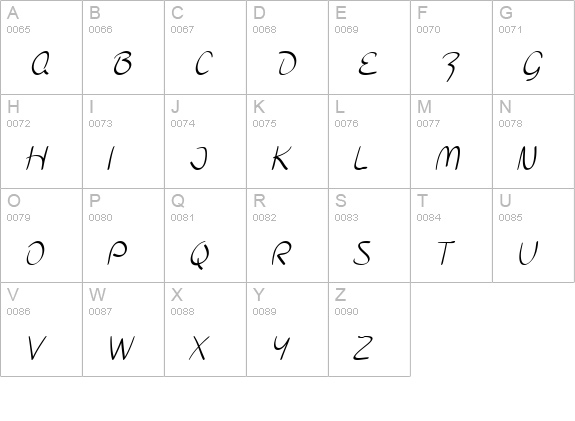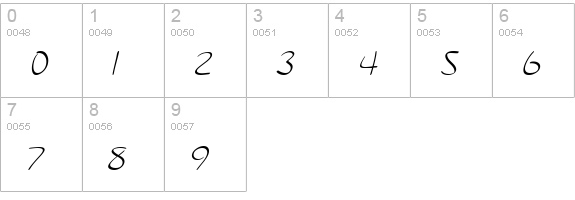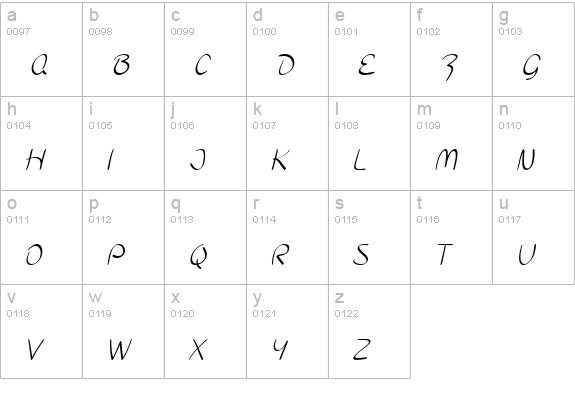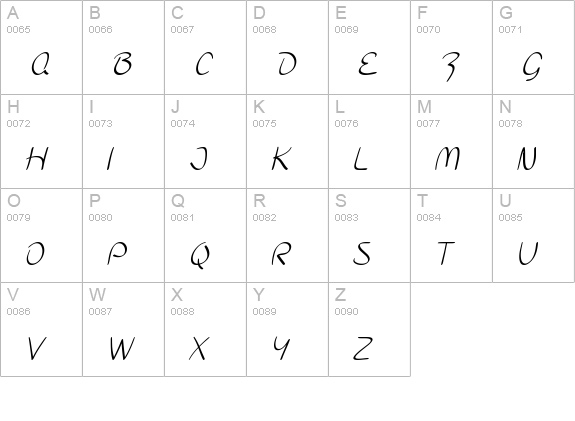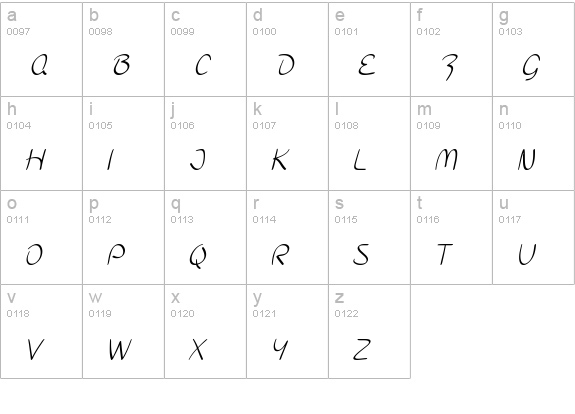
SF Burlington Script SC Font Details
SF Burlington Script SC font is a stunning and elegant typeface that exudes sophistication and charm. With its delicate and flowing strokes, this font brings a touch of elegance to any design project. Whether you're creating wedding invitations, branding materials, or simply adding a touch of class to your website, SF Burlington Script SC font is the perfect choice. The versatility of this font allows it to be used for both formal and informal occasions. Its graceful curves and smooth lines make it ideal for adding a touch of elegance to wedding stationery, while its playful and whimsical nature makes it perfect for adding a touch of personality to casual designs. What sets SF Burlington Script SC font apart is that it is freely available to download at FontsMarket.com. This means that you can bring a touch of sophistication and elegance to your design projects without breaking the bank. Whether you're a professional designer or a hobbyist, this font is a valuable addition to your collection. Don't miss out on the opportunity to enhance your designs with SF Burlington Script SC font. Download it for free at FontsMarket.com and let your creativity shine.